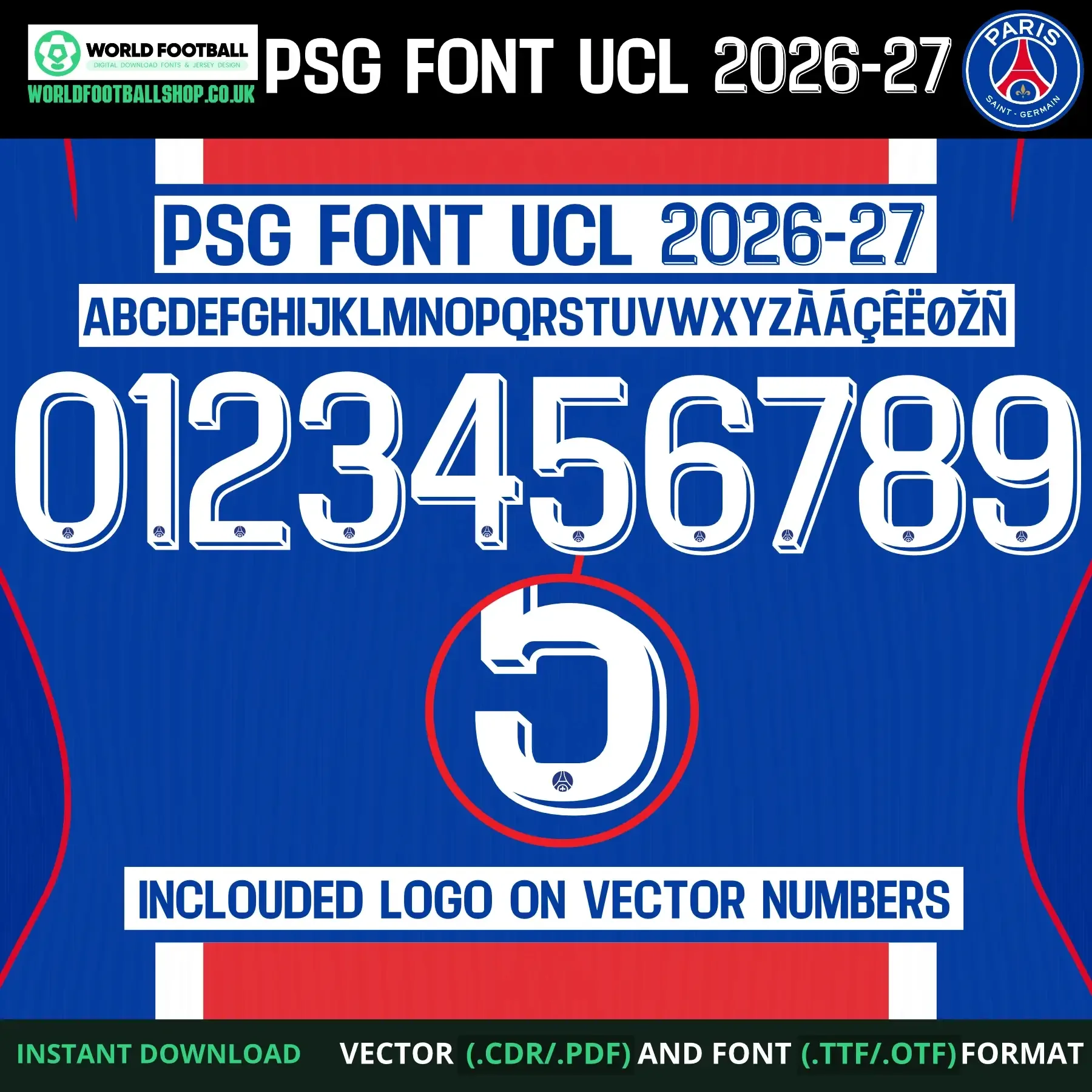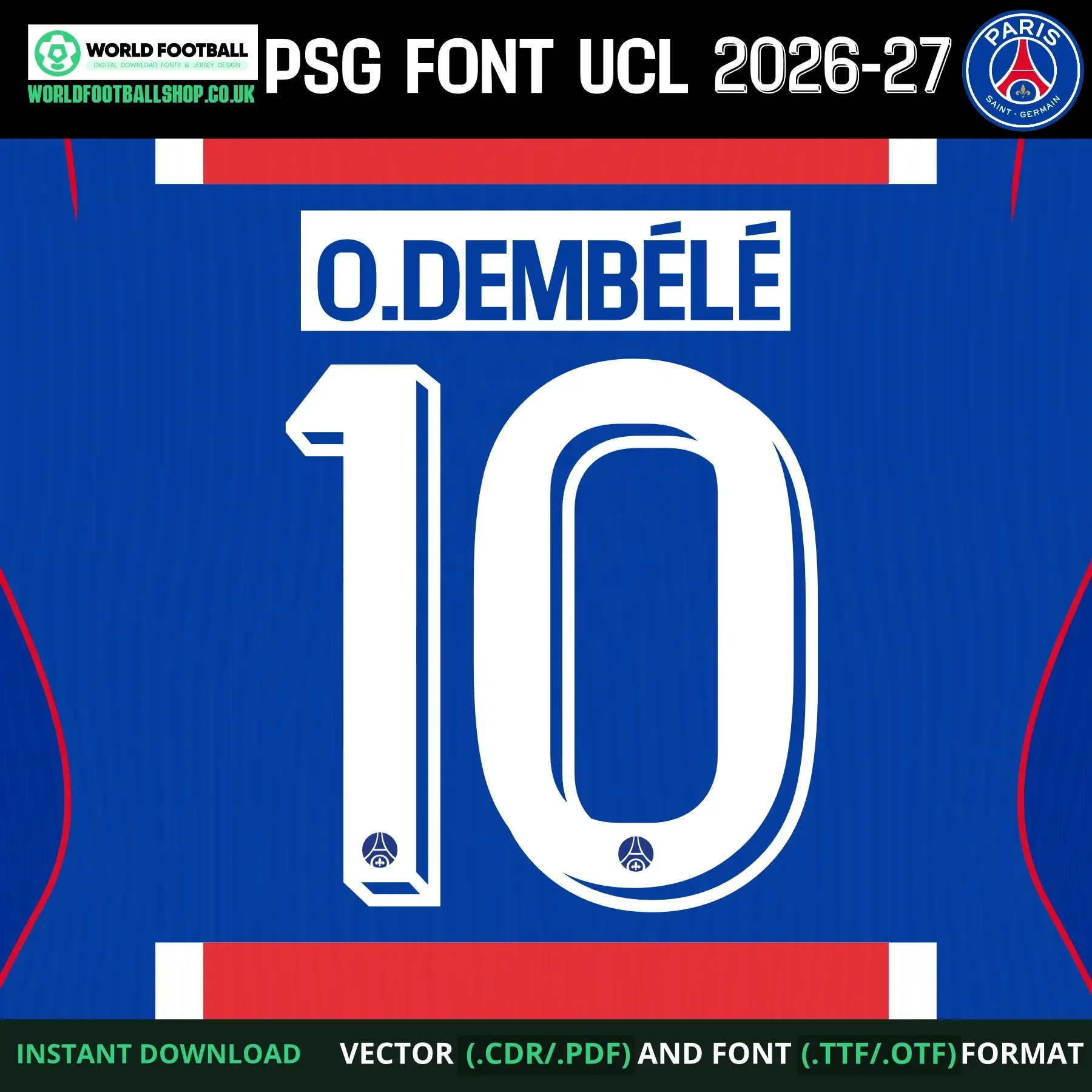
PSG Font UCL 2026-27, inspired by the style of Paris Saint-Germain's kit lettering for the Champions League. Includes TTF and OTF font files plus CDR and PDF vector files, with a full A-Z alphabet, numbers 0–9, and accented characters (À, Á, Ç, Ê, Ë, Ø, Ž, Ñ). Instant digital download - no physical product is shipped.
PSG Font UCL 2026-27 -Style Jersey Typography
This football font set takes inspiration from the bold lettering seen on Paris Saint-Germain's kit for the 2026-27 Champions League season. Each character is built in clean white with a navy blue outline and a subtle 3D shadow effect, set against PSG's classic royal blue background with red-and-white striped trim and curved red accent lines - an instantly recognisable Parisian identity.
The full character set - A-Z alphabet and numbers 0-9, with the PSG crest embedded at the base of every letter and number - is supplied as both desktop font files (TTF/OTF) and vector files (CDR/PDF), so it works whether you're setting text quickly in a design app or need clean, editable outlines for cutting and printing. The preview layout shows the full character set alongside a sample name and number combination - O.DEMBÉLÉ 10 - to demonstrate how the font looks applied.
- Bold white-on-blue styling with navy outline delivers strong contrast and instant club recognition
- Crest detail embedded on every character for a cohesive, kit-inspired look
This font is suited to custom shirt mockups, print-shop nameset templates, social graphics, posters, and general football-themed design work. The vector outlines stay clean at both large sizes (banners, posters) and small sizes (sleeve numbers, mini-kit graphics), and are compatible with Adobe Illustrator, Photoshop, CorelDRAW, Affinity Designer/Publisher, Figma, and any software that accepts TTF/OTF fonts or CDR/PDF vector imports. The files also suit vinyl-cutting and sublimation printing workflows.